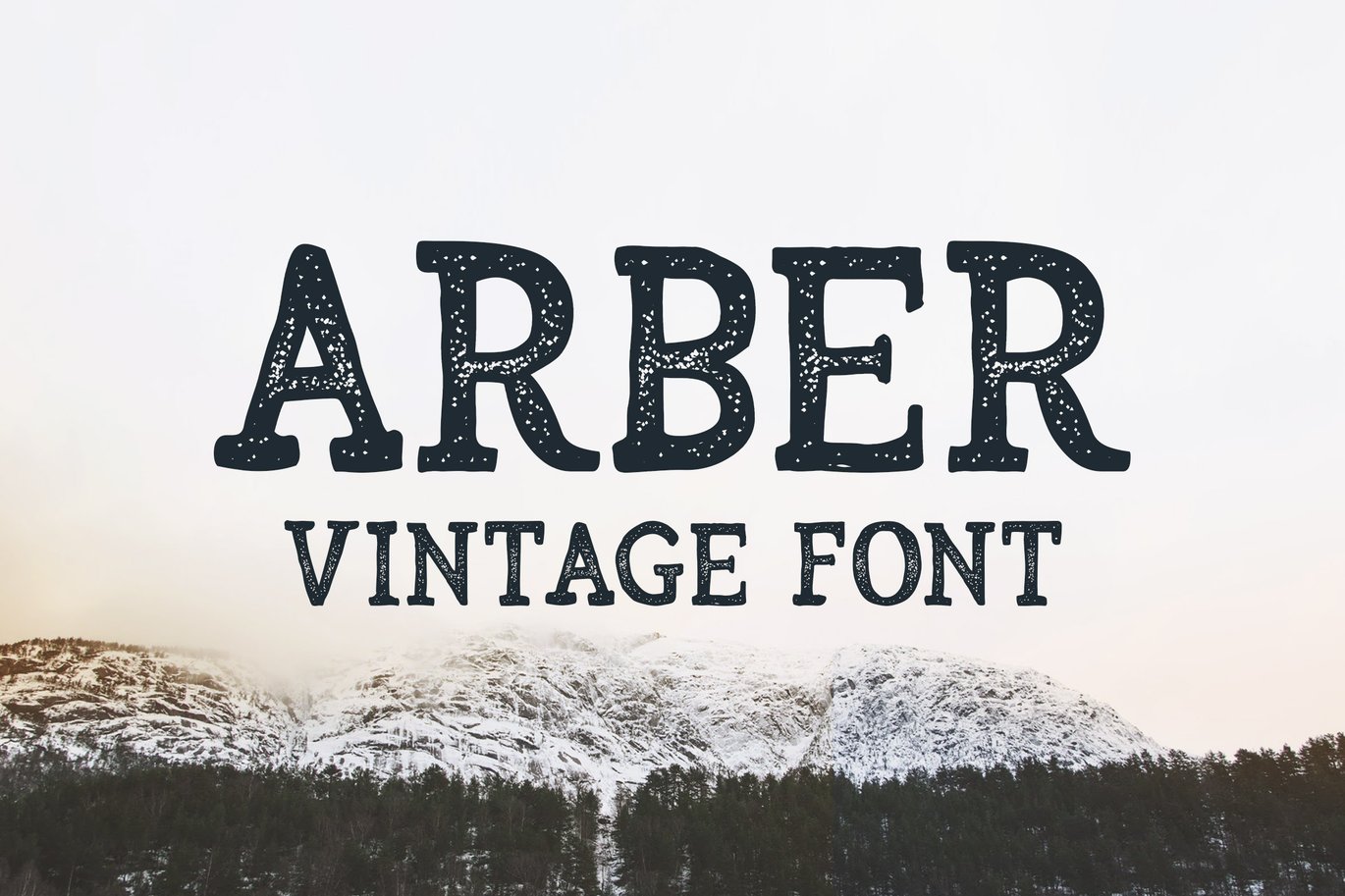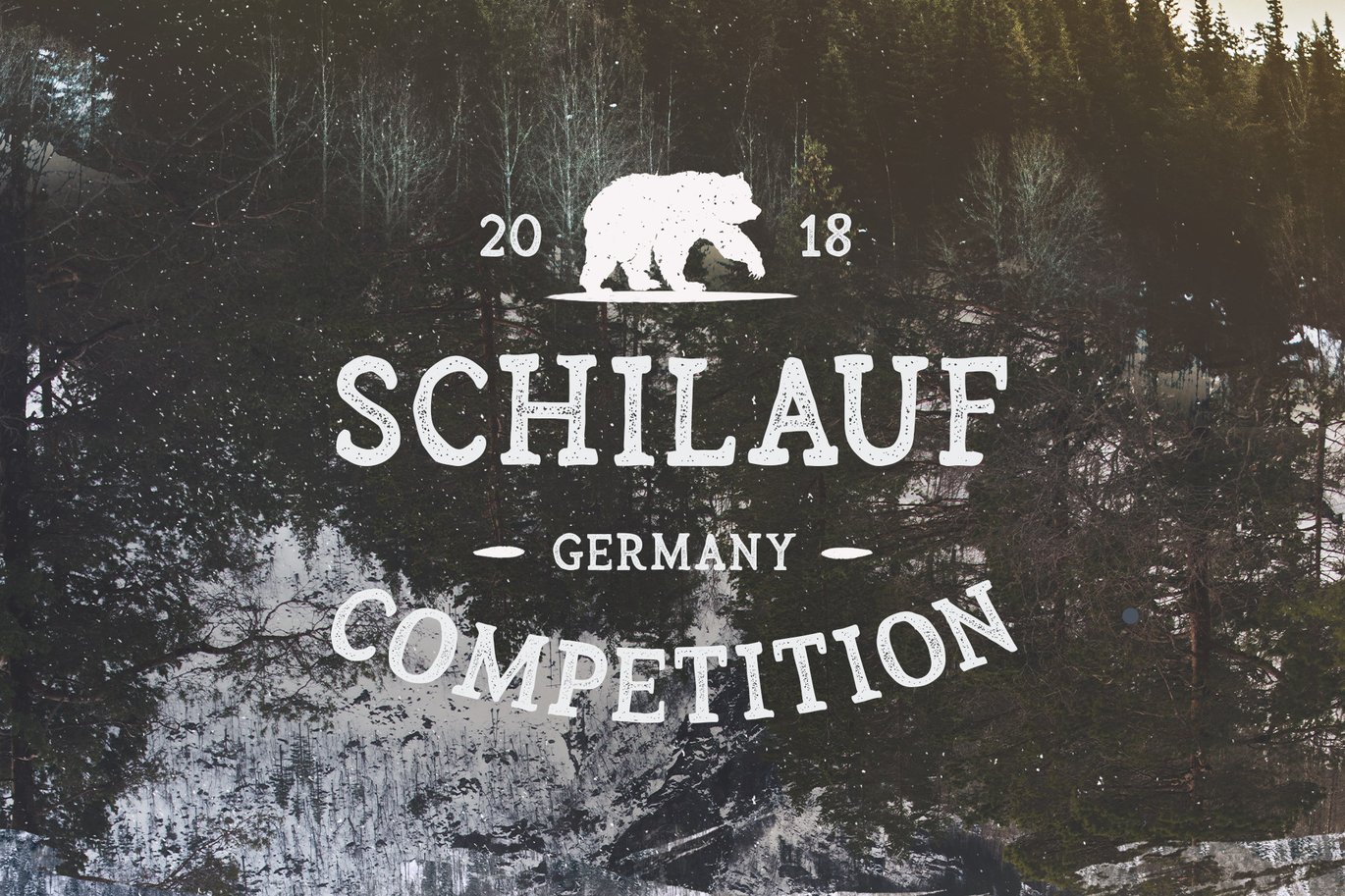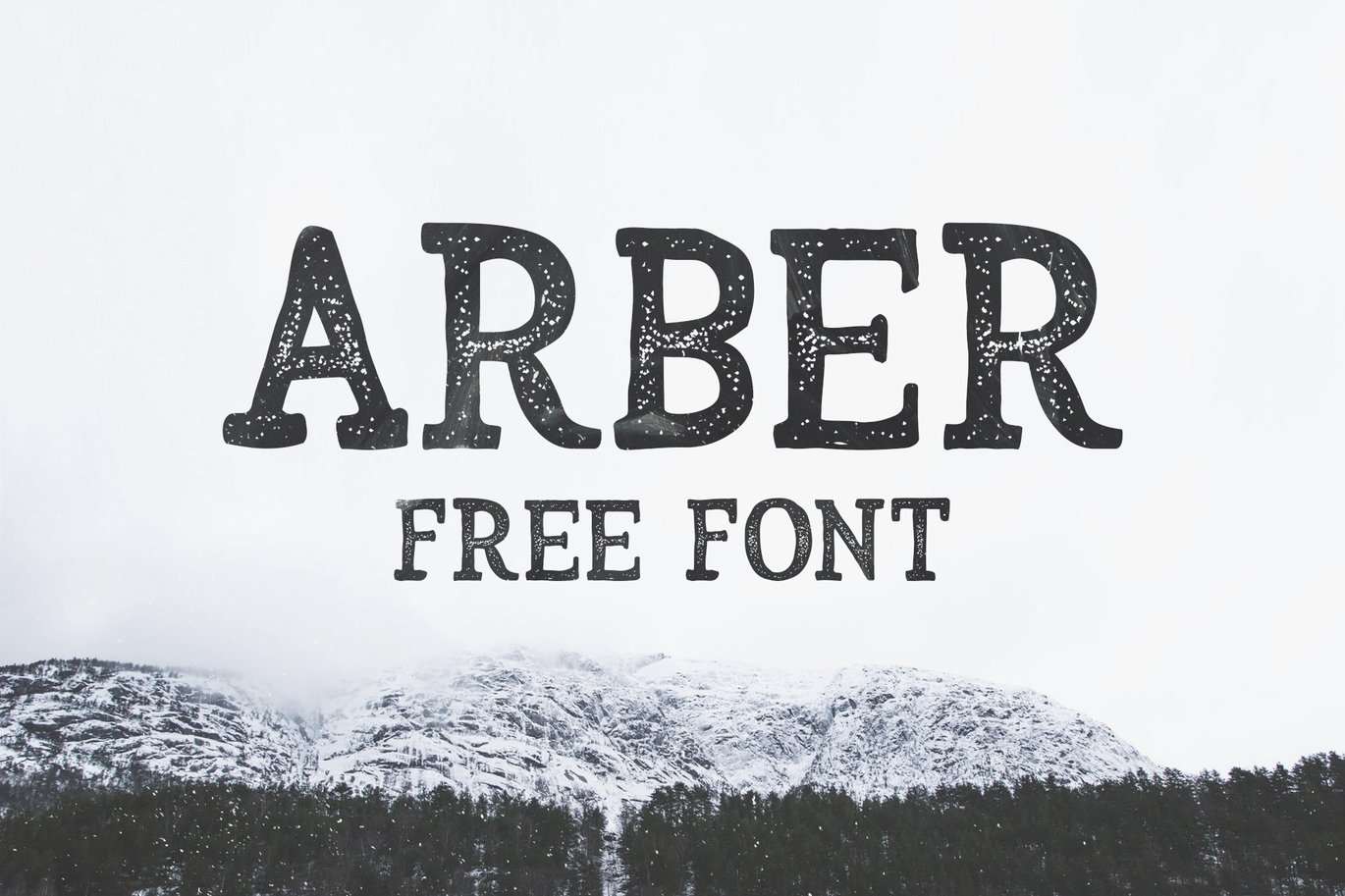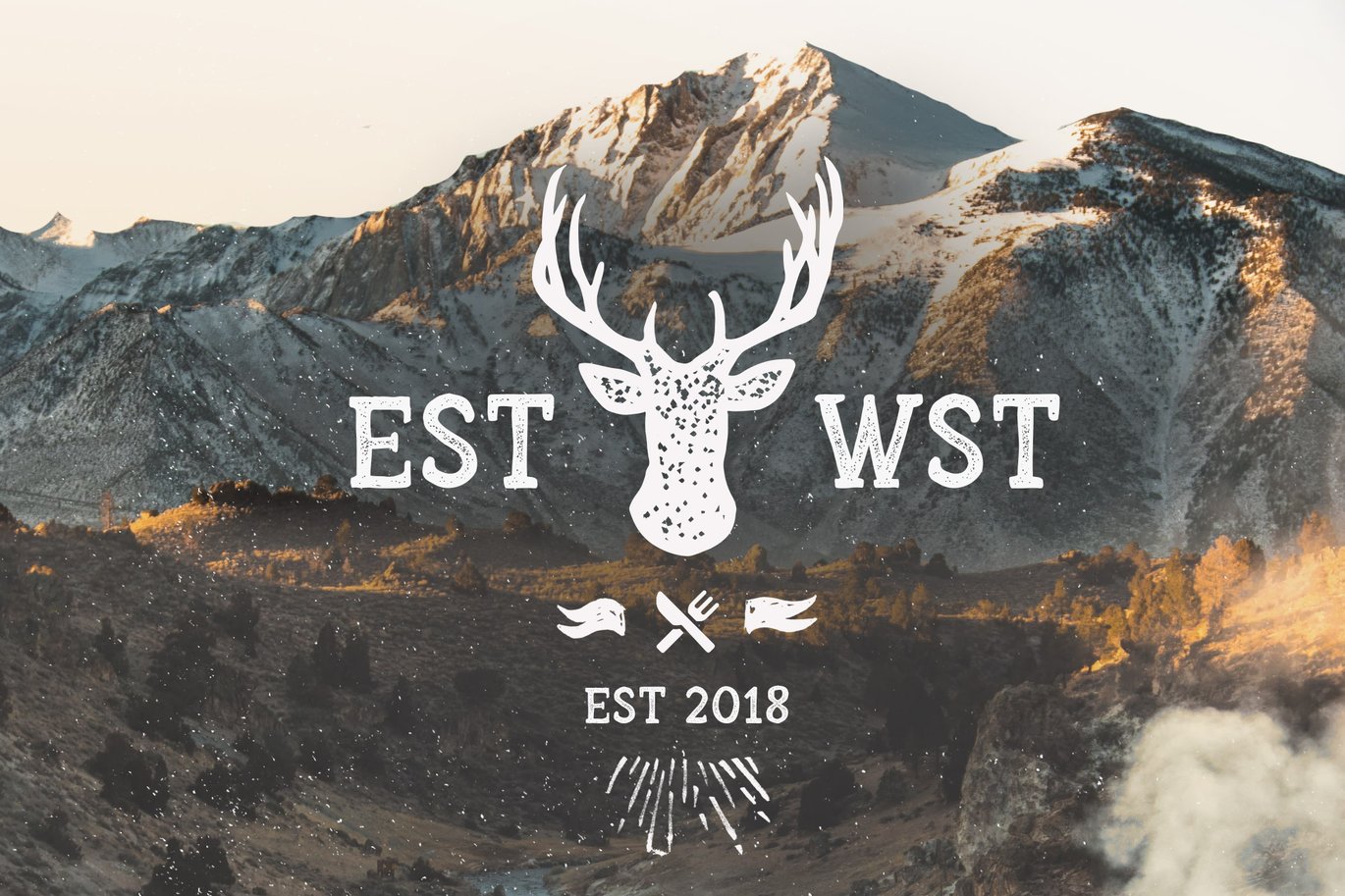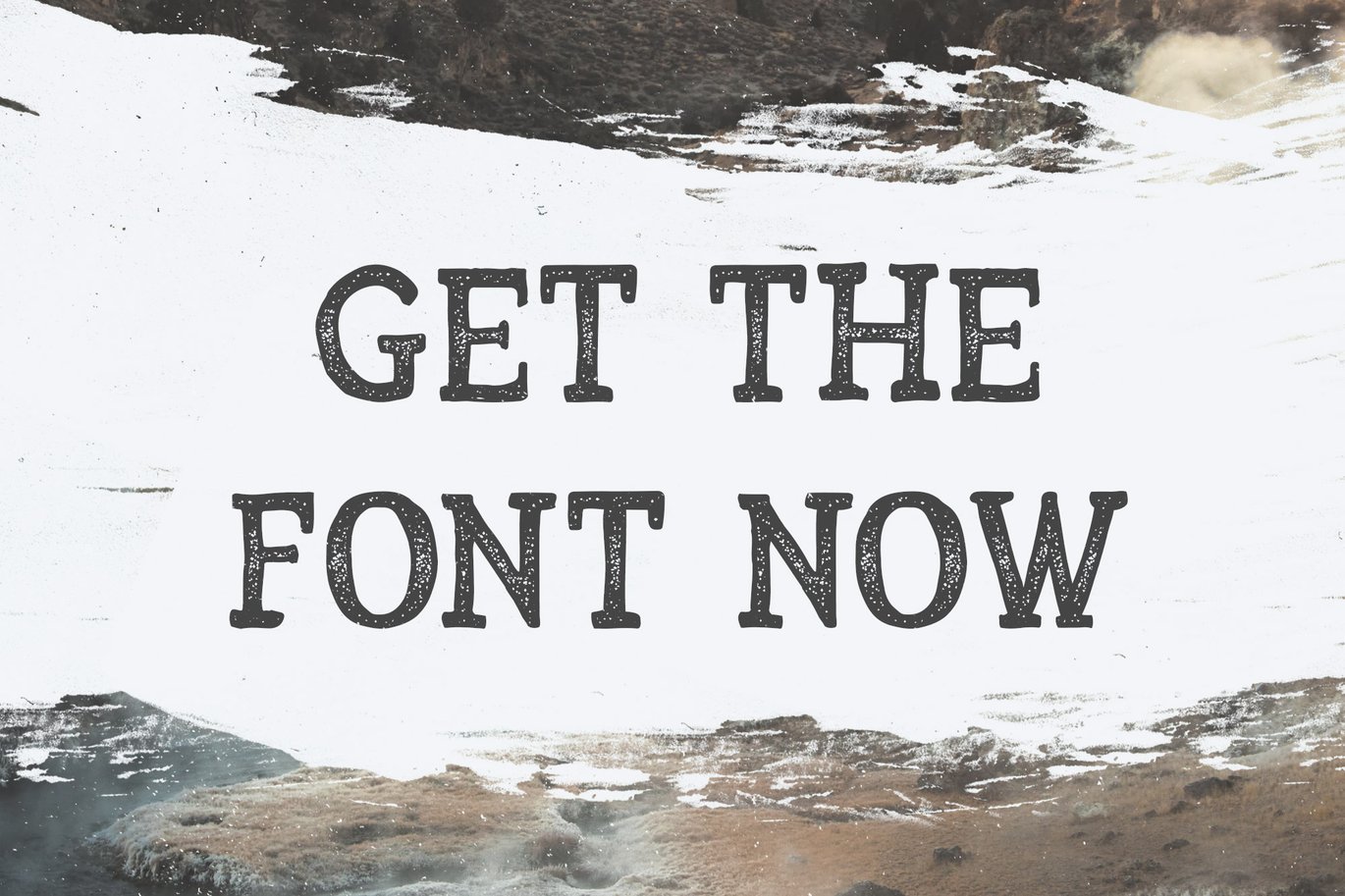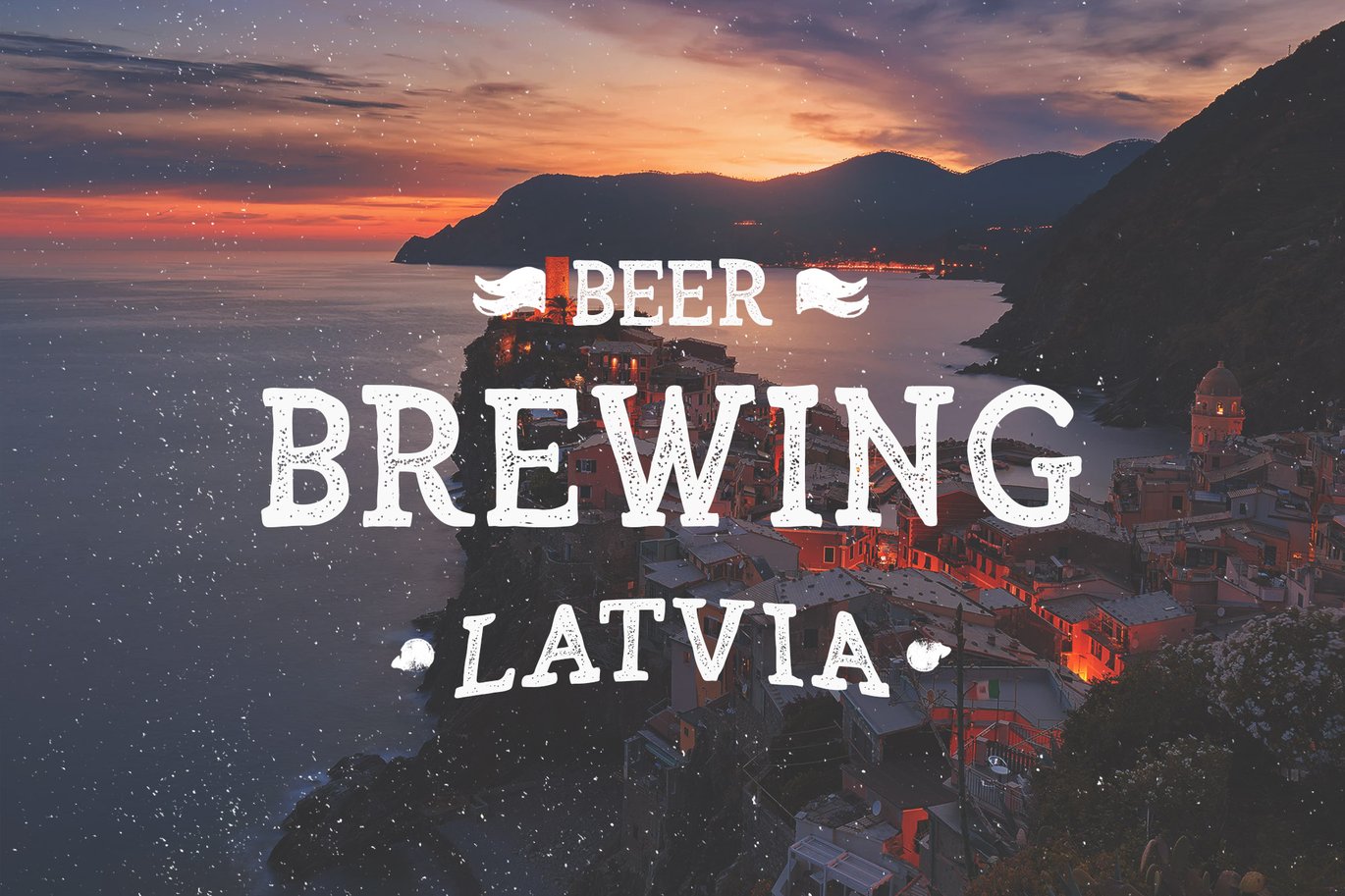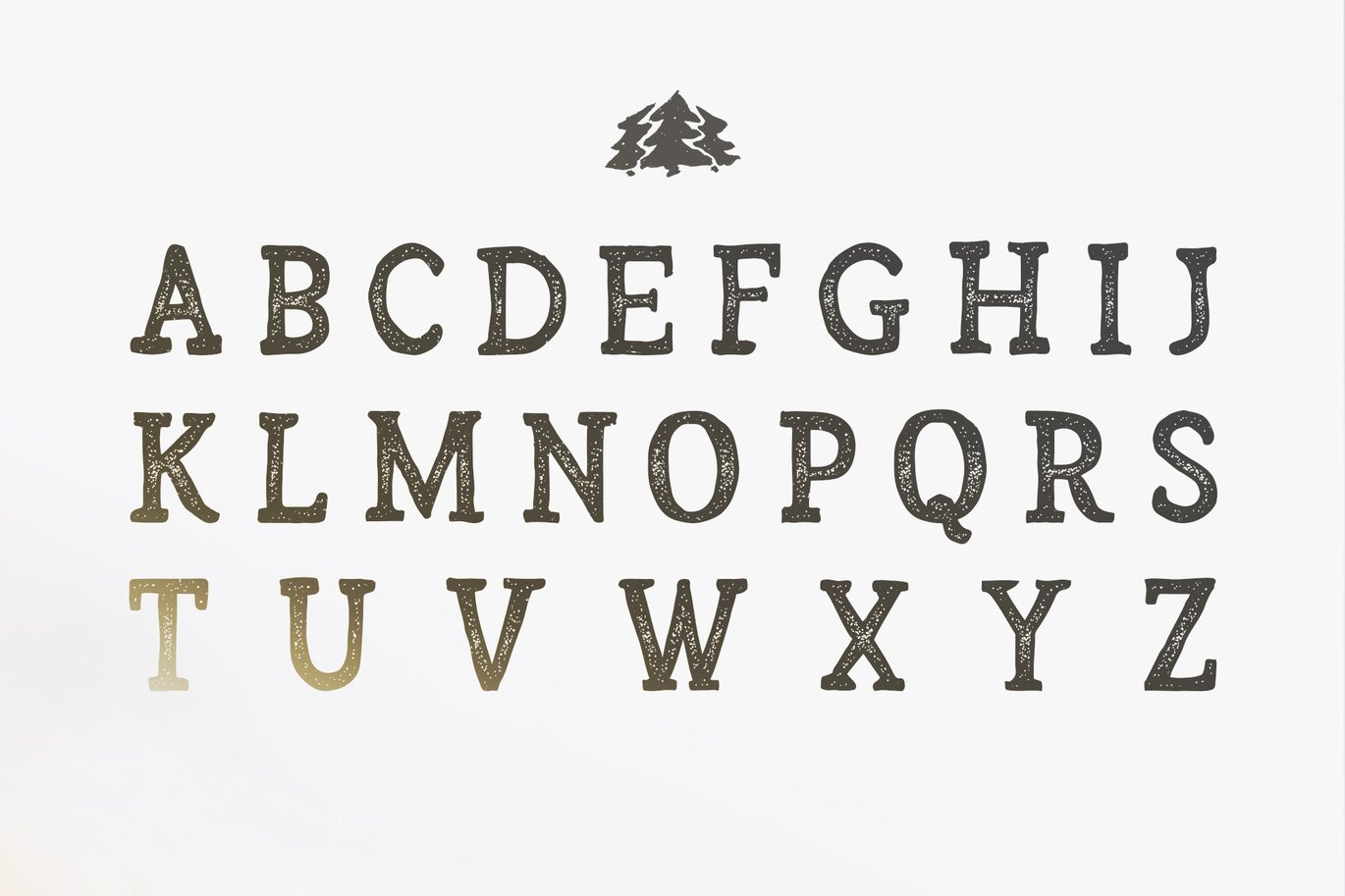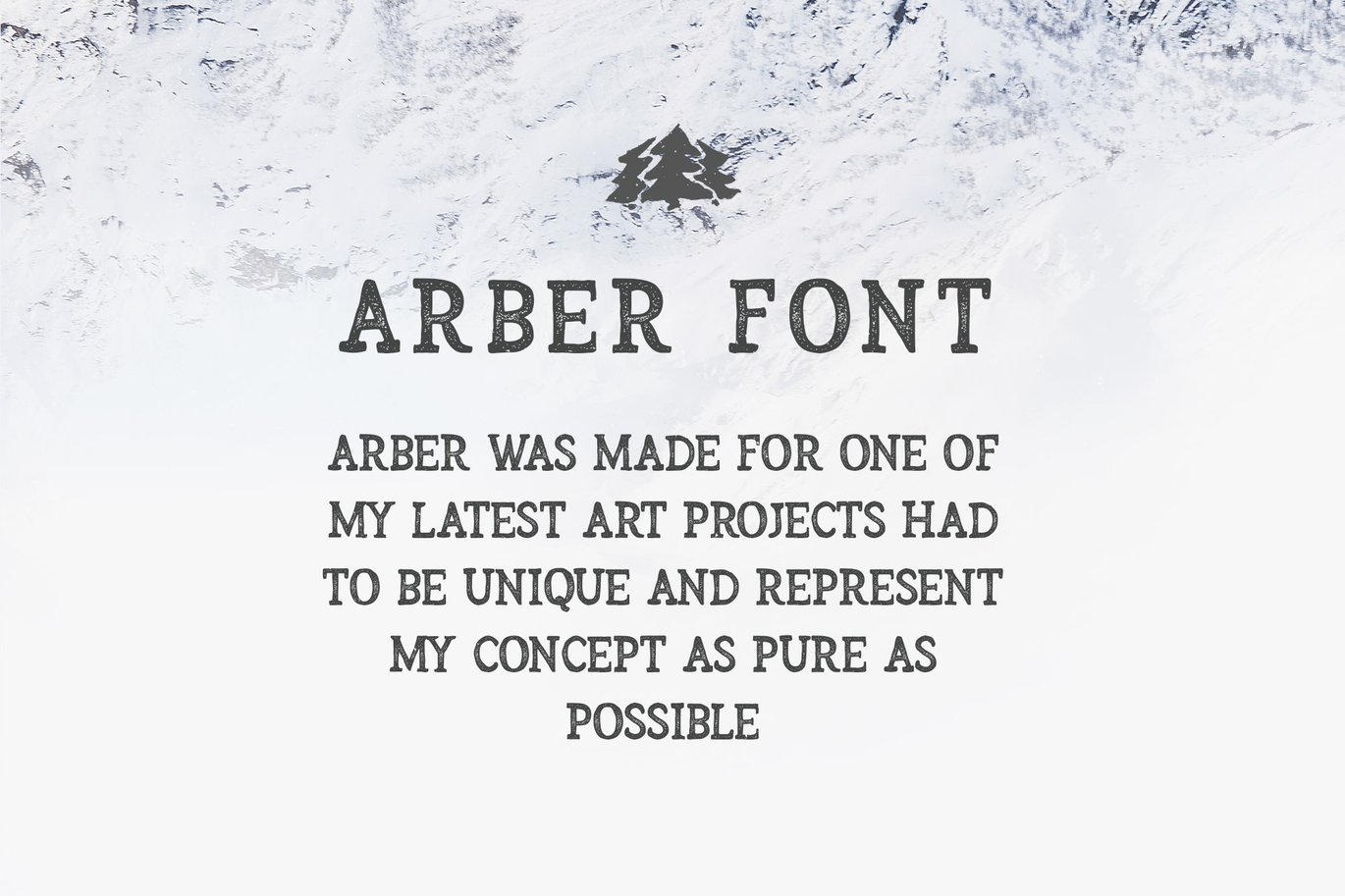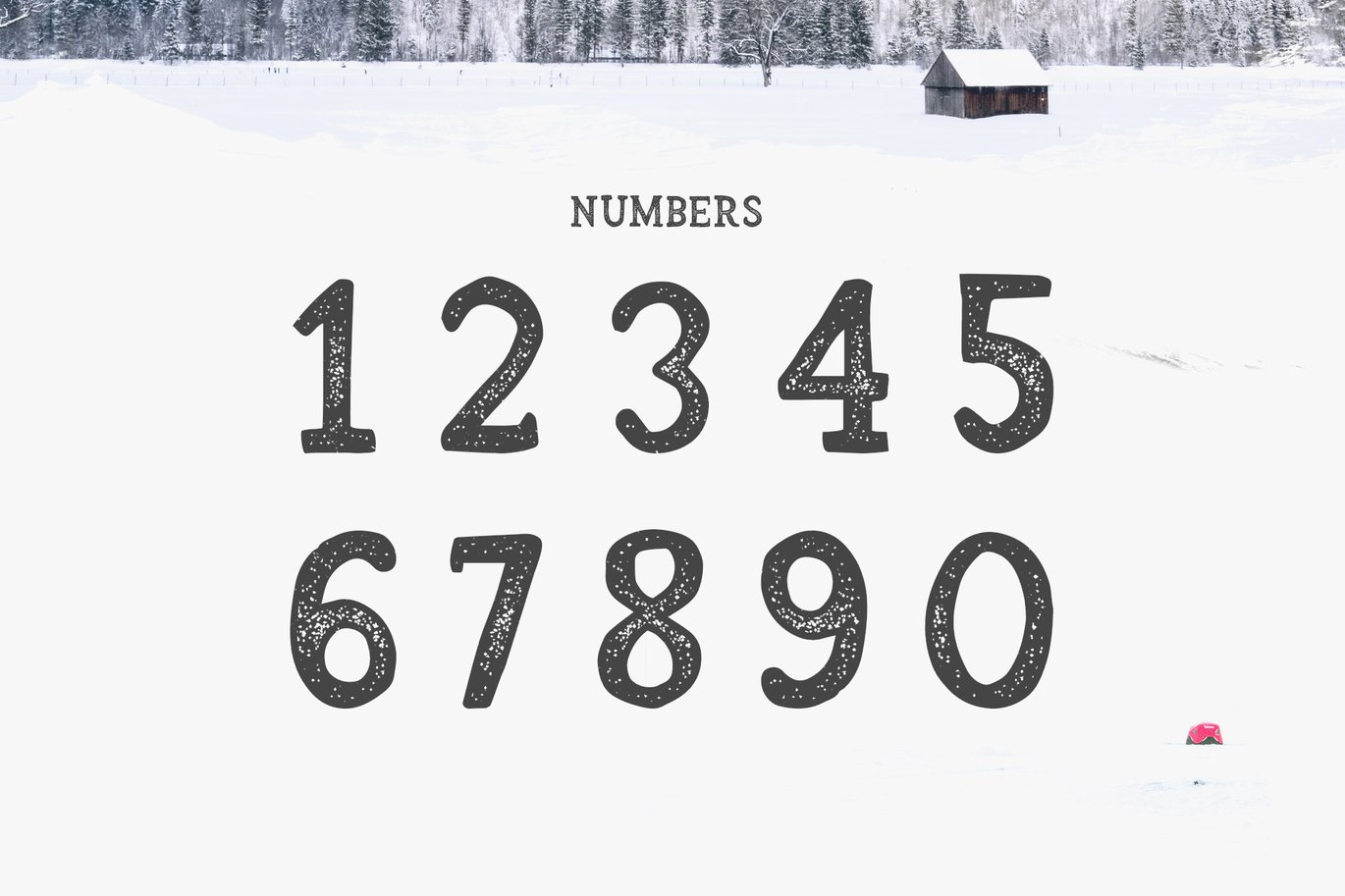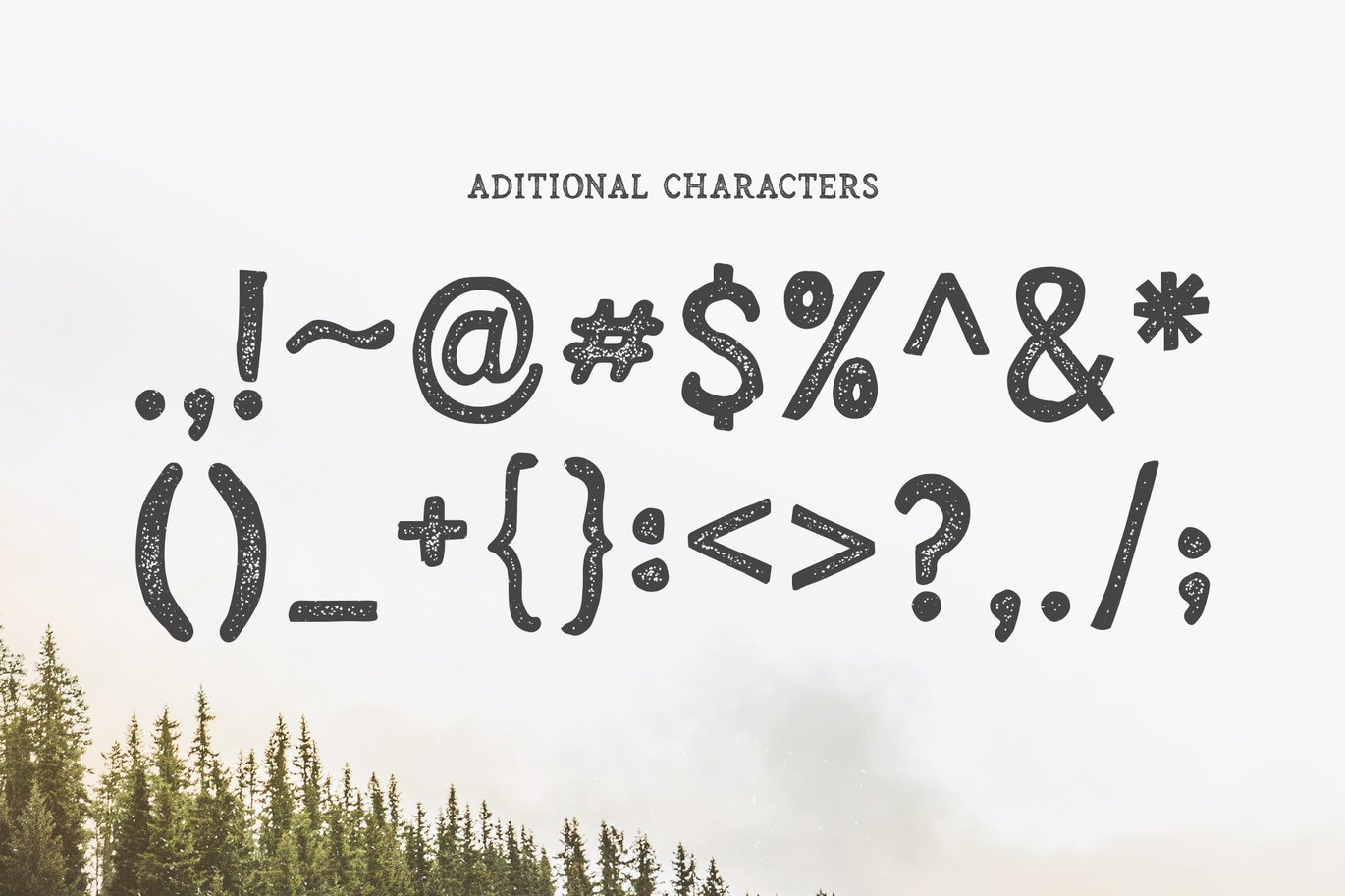
Arber Vintage Font
Arber vintage font was made by Krisjanis Mezulis. It features a brush made feel and look. Every single letter has been hand drawn with a thin water brush on acrylic paper, this making the typeface unique. After that it was scanned and put together as a font. The font suits best big headlines, logos and posters.